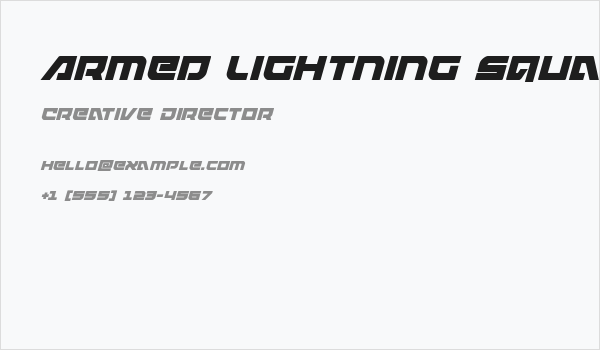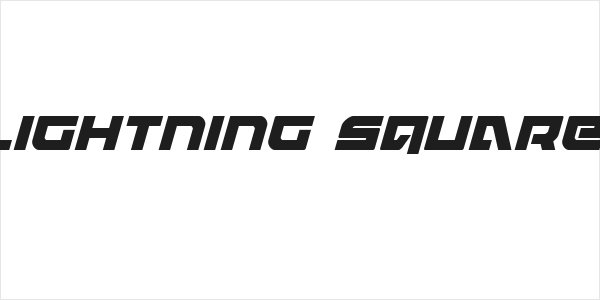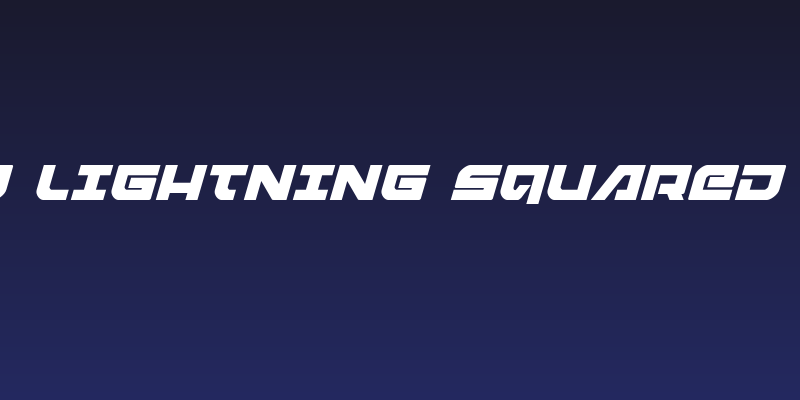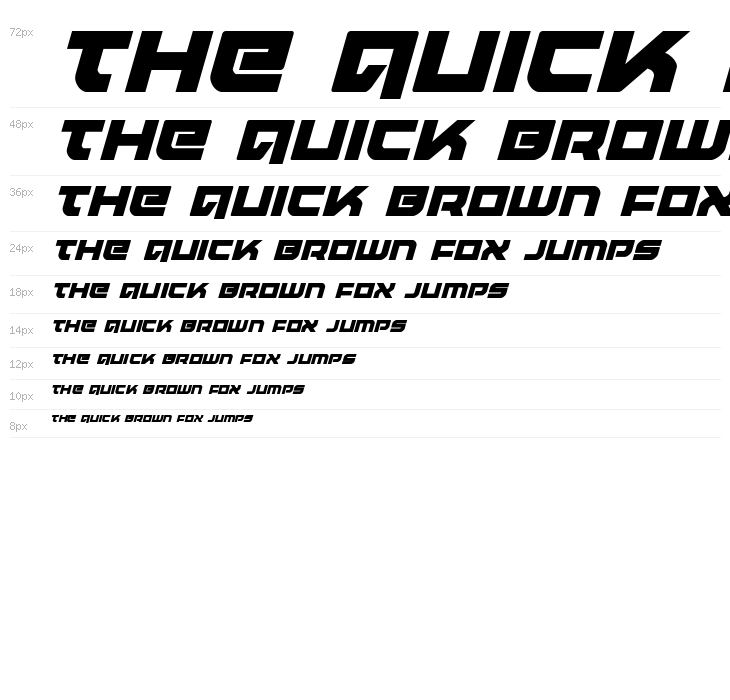
Armed Lightning Squared Italic Font
Armed Lightning Squared Italic Description
This font features a bold, angular design with a futuristic and dynamic appearance. The characters are sharply defined, with a distinct slant that gives an impression of movement and speed. The geometric shapes and squared-off edges contribute to a modern, tech-inspired aesthetic. The uppercase and lowercase letters maintain a consistent style, with the lowercase being slightly more compact. Numerals and special characters follow the same angular and bold design, ensuring uniformity across all glyphs. The font's unique style makes it stand out, suitable for projects that require a strong visual impact.